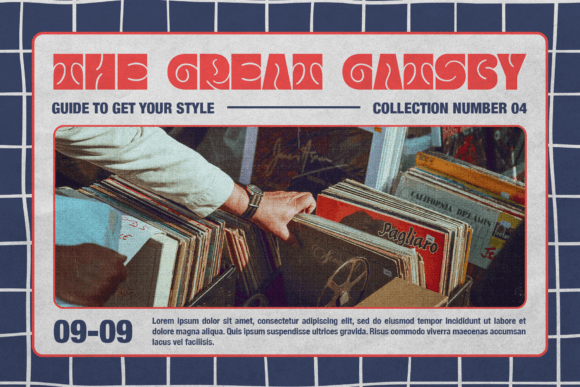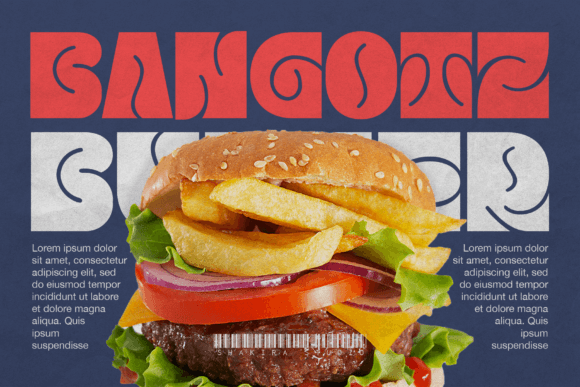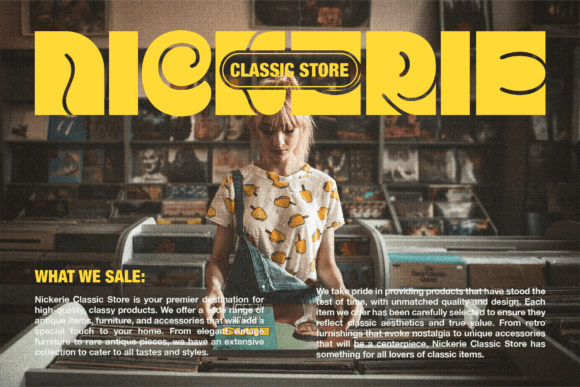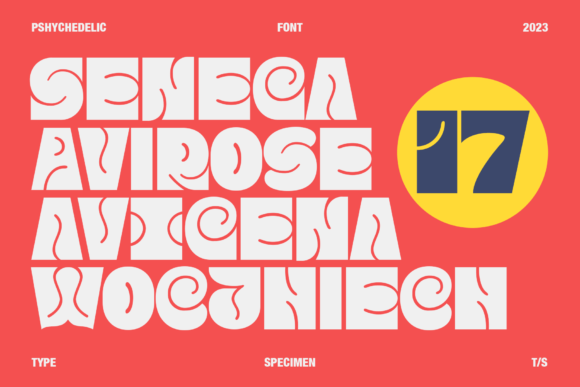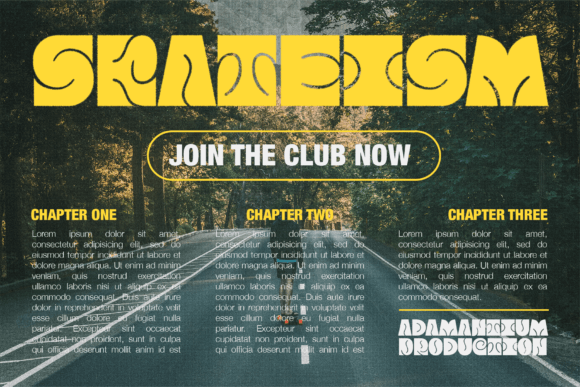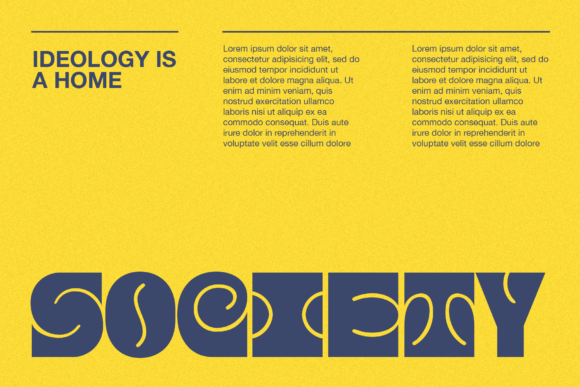
Introduction to Makeba Font
This is a writing style that might suit what you need, strong and bold, psychedelic style.
Add just the right amount of vintage flair to your retro graphics with this original psychedelic-style design Suitable for music posters, album graphics, book titles, etc.
Key Features of Makeba Font
Why Choose Makeba Font?